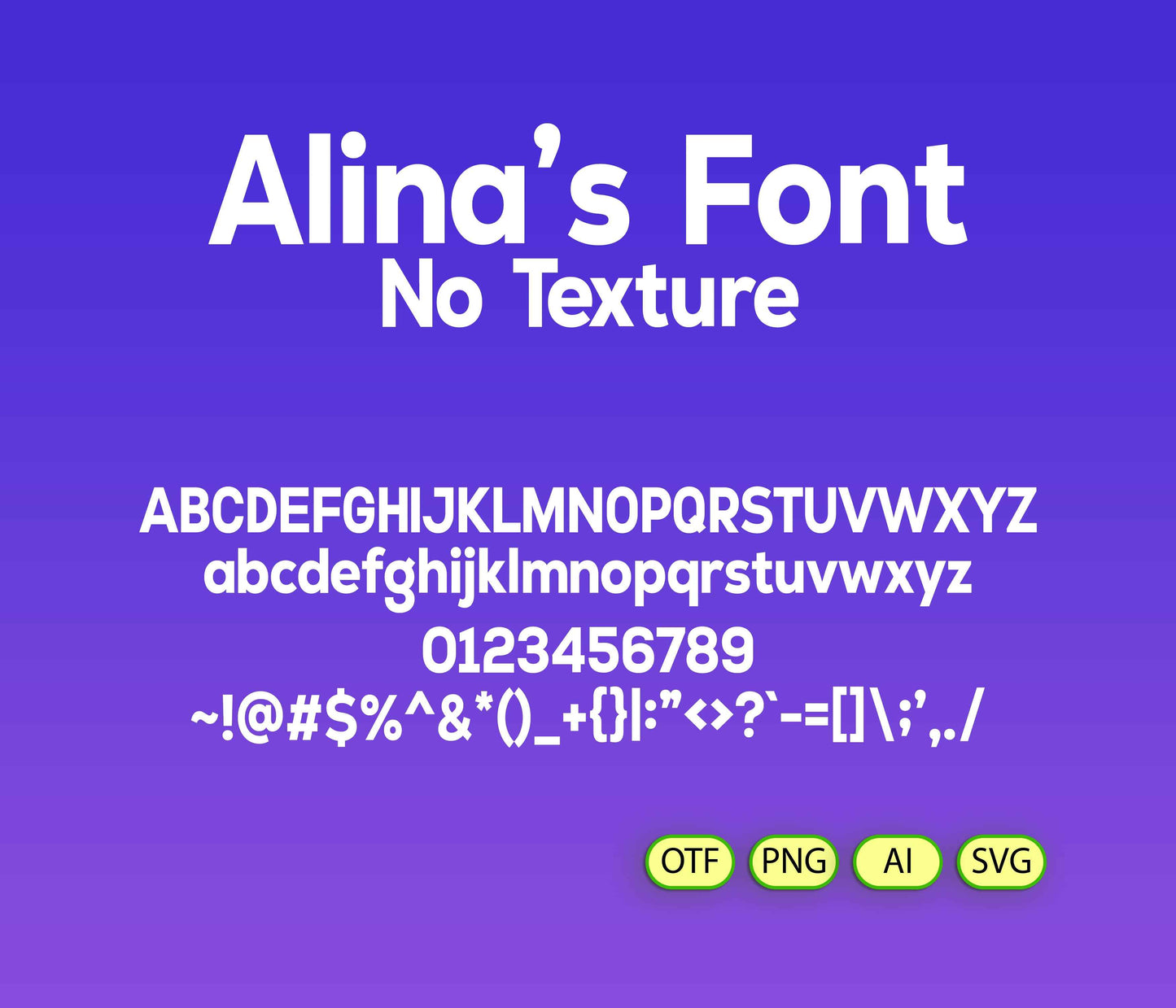
FREE Basic Adventure Font
Embark on a journey of creativity and exploration with our Basic Adventure font, a typeface that captures the essence of discovery, freedom, and the thrill of the unknown. Designed for adventurers at heart and creators who draw inspiration from the world around them, the Basic Adventure font combines the simplicity of basic typefaces with the spirit of adventure, making it perfect for storytelling, travel blogs, outdoor event promotions, and projects that aim to inspire a sense of wanderlust and exploration.
Optimized for Canva, the Basic Adventure font enables users of all design backgrounds to easily integrate this spirit of exploration into their digital designs. This font is a versatile choice for anyone looking to convey messages of adventure and discovery, whether it's through social media graphics, website design, or personalized invitations. Its clean lines and straightforward design ensure that your message is delivered clearly, while still evoking the excitement and wonder of adventure.
Featuring a comprehensive character set and a user-friendly design, the Basic Adventure font is accessible to everyone. It invites users to capture and share the beauty of their journeys, whether they're documenting far-off travels or everyday adventures. With its no-texture variant, the Basic Adventure font is prepared to accompany you on all your creative endeavors, enhancing your projects with its blend of simplicity and the call of the wild.